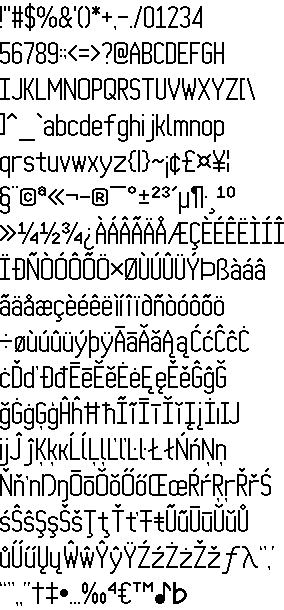
• This is the official Fitbit Charge 1, 22 pixels tall font that was designed by me I got the numbers first that was ripped by me and I made some custom letters, uppercase, lowercase, and some symbols that the characters was not used on this electronic Fitbit watch. This new font can be used for anything.